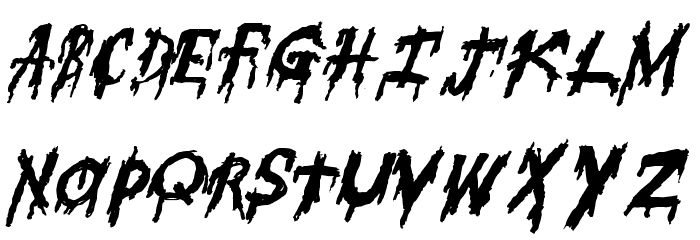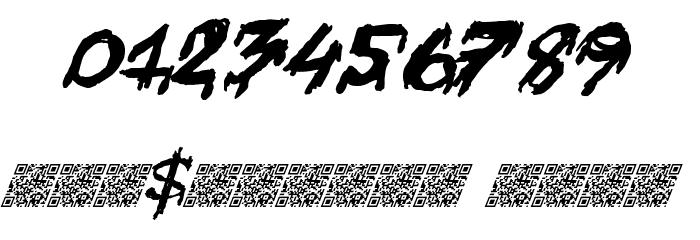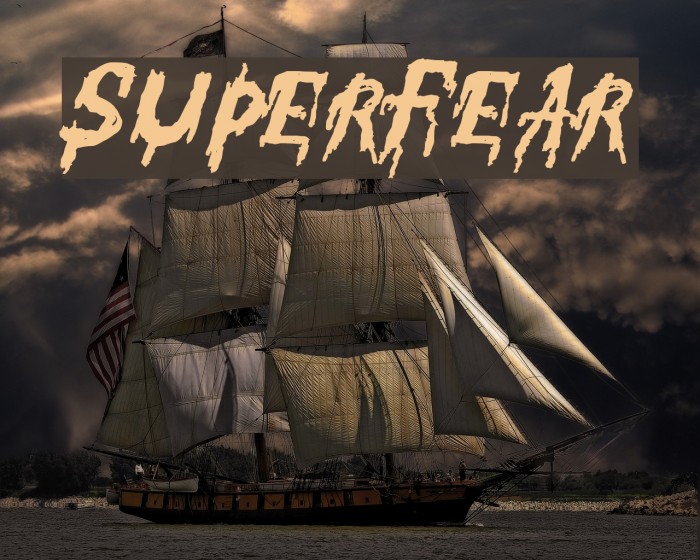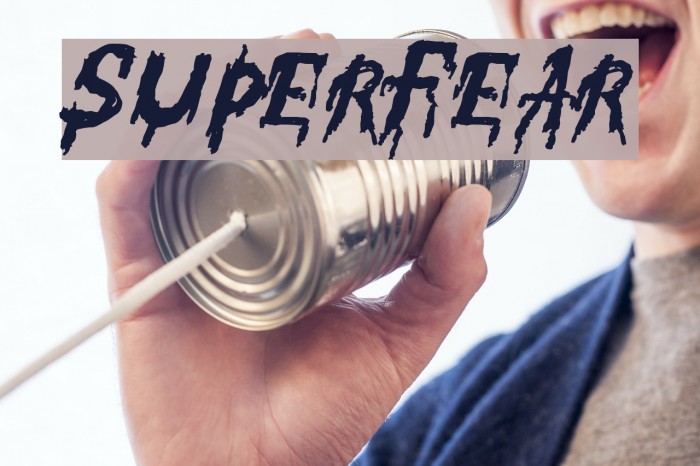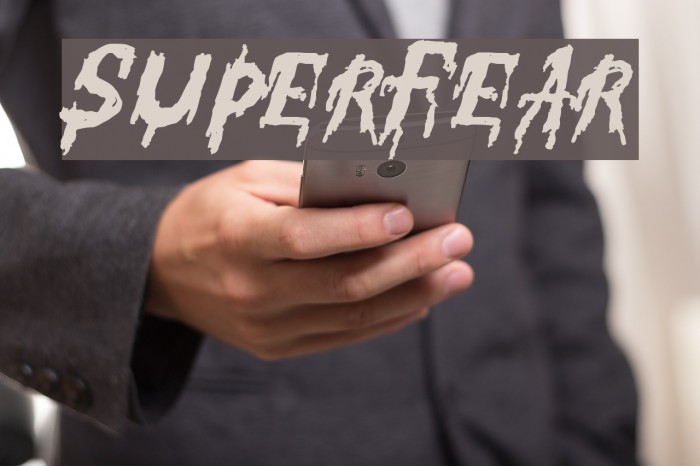
SuperFear Font
This font features a bold, jagged style that evokes a sense of horror and intensity. The characters appear as if they are dripping or melting, creating a dynamic and unsettling visual effect. Each letter is uniquely crafted with sharp edges and irregular strokes, enhancing the chaotic and eerie aesthetic. The uppercase and lowercase letters maintain this consistent theme, while the numbers and special characters follow suit with the same dramatic flair. This font is perfect for projects that require a strong, impactful presence, such as horror-themed designs, Halloween promotions, or any creative work that aims to evoke fear or suspense.
A bold, jagged font with a horror-inspired, dripping effect.
- Proposed Projects: Ideal for horror-themed designs, Halloween promotions, movie posters, and suspenseful creative works.